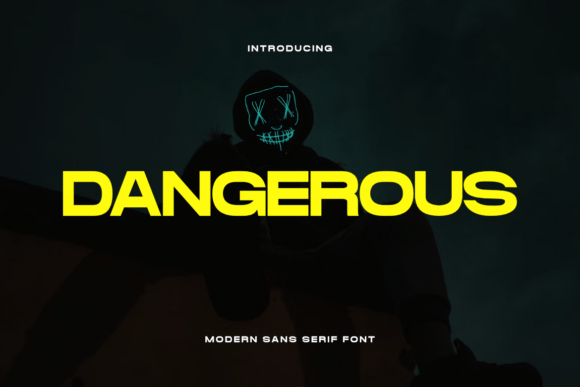
The Power of Dangerous Font: Unleashing Impactful Communication
I’ll never forget the time I was working on a project for a gaming company, tasked with creating a poster that would grab the attention of gamers worldwide. I spent hours scouring the internet for the perfect font, but nothing seemed to fit the bill. That was until I stumbled upon Dangerous Font – a striking, powerhouse modern bold sans serif display font that changed the game. 🚀
A First Impression: What Makes Dangerous Font Special
Dangerous Font is built for high-visibility and impactful communication. Its wide, solid letterforms and clean geometric structure provide an assertive and contemporary aesthetic, making it perfect for high-energy branding, action-oriented headlines, gaming titles, and futuristic poster designs. This versatile typeface ensures your message stands out with confidence, providing a sleek yet aggressive look that is both professional and unforgettable.
So, what do I love about Dangerous Font? Here are a few highlights:
• ✨ High-impact visibility: This font is designed to grab attention, and it does so with ease.
• ✅ Clean geometric structure: The font’s structure provides a professional and contemporary look.
• 💪 Versatility: Use it for branding, headlines, titles, and more.
And, like any font, it’s not without its quirks:
• 🤔 Limited use in body text: Due to its bold nature, Dangerous Font may not be the best choice for lengthy body text.
• ⚠️ Requires careful kerning: As with any bold font, kerning is crucial to ensure it looks its best.
Rumor has it that Dangerous Font was inspired by the world of high-octane action movies and video games. The designer, fueled by a passion for futuristic aesthetics and a desire to create a font that would stand out in any medium, crafted Dangerous Font to be more than just a typeface – but an experience.
What makes Dangerous Font suitable for gaming titles? Its bold and assertive design makes it perfect for grabbing the attention of gamers and adding a dynamic feel to titles.
Can I use Dangerous Font for professional branding? Absolutely! Its clean and contemporary aesthetic makes it suitable for a wide range of professional branding needs.
Is Dangerous Font difficult to read in small sizes? Due to its bold nature, it may not be ideal for small sizes or body text. It’s best used for headlines and titles.
Can I use Dangerous Font for futuristic poster designs? Yes, its geometric structure and bold appearance make it a great choice for futuristic and high-energy designs.